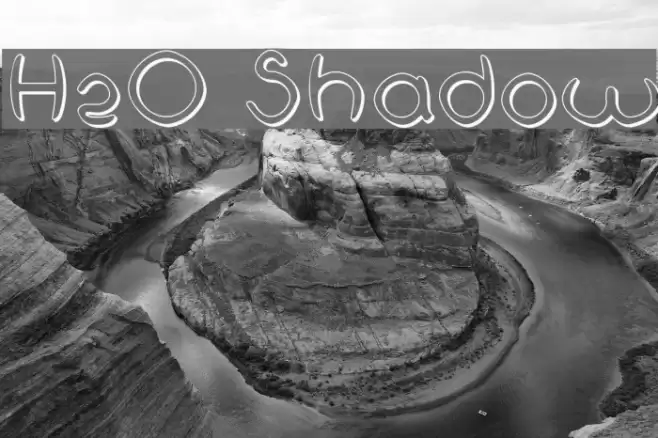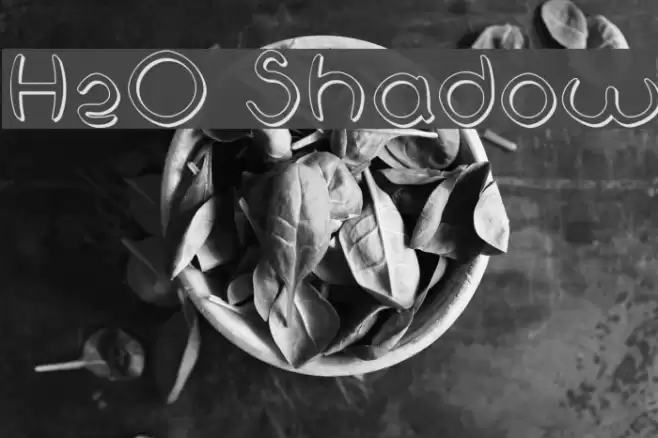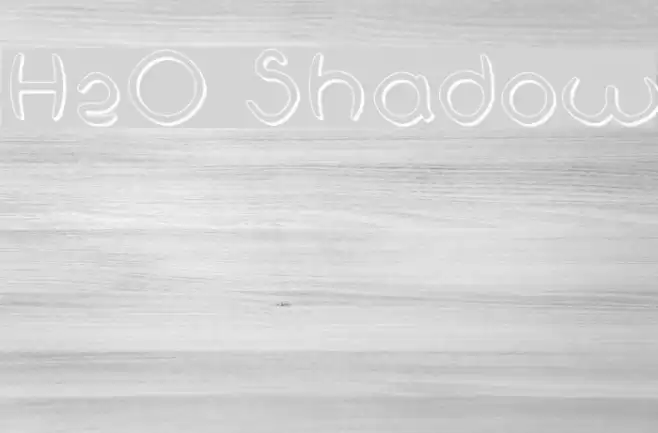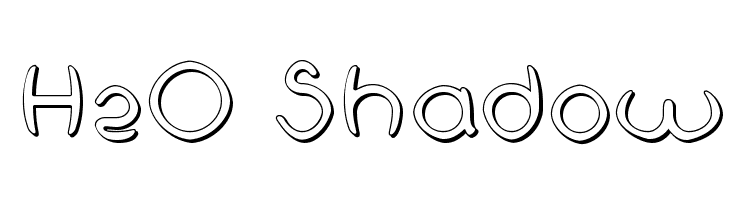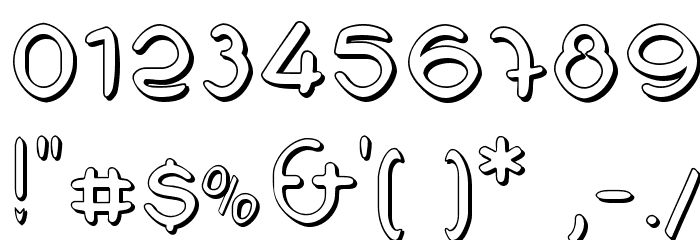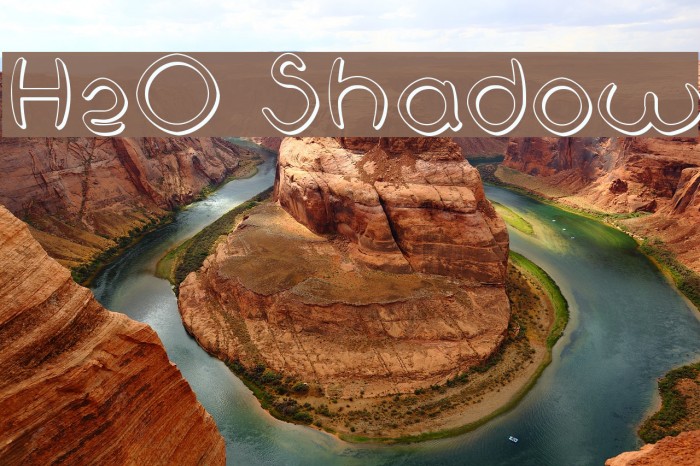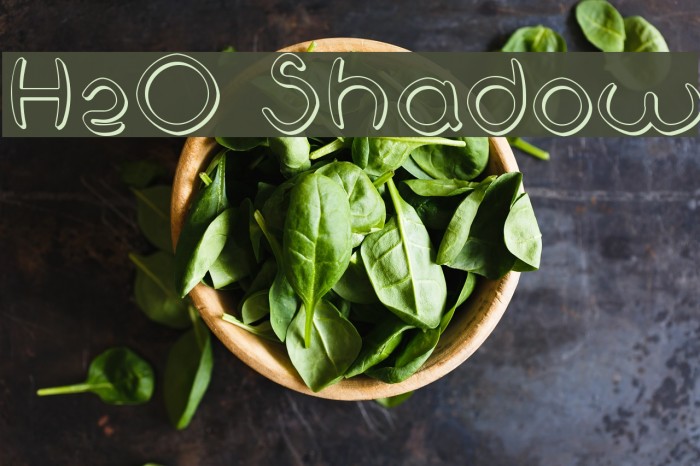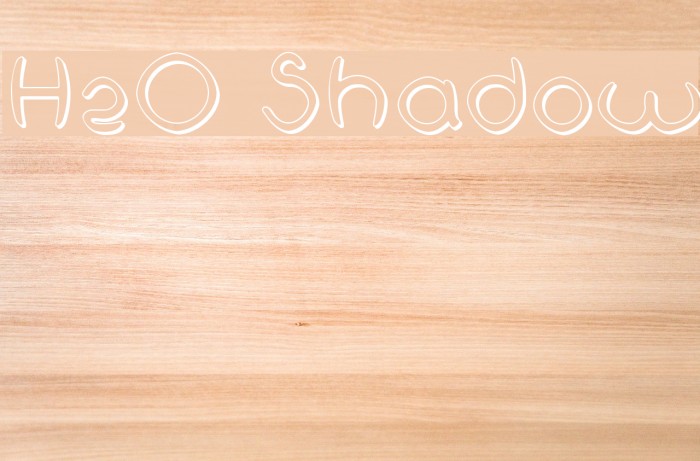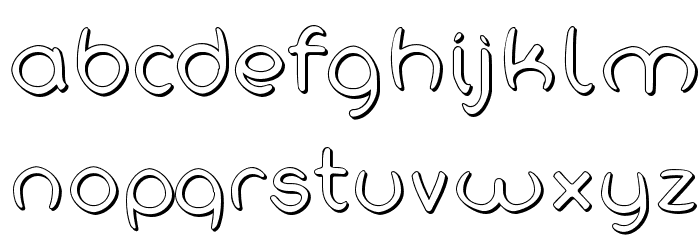
H2O Shadow Font
H2O Shadow Description
This font features a playful and dynamic style with a shadow effect that gives each character a three-dimensional appearance. The letters are rounded and bold, creating a friendly and approachable look. The shadow adds depth and interest, making it stand out in any design. The uppercase and lowercase letters maintain a consistent style, with smooth curves and a uniform thickness. Numbers and special characters are designed to match the overall aesthetic, ensuring a cohesive appearance across all text elements.
A playful, shadowed font with rounded, bold characters from Uncategorized fonts.
- Proposed Projects: Ideal for children's books, playful branding, posters, and creative projects that require a fun and engaging typeface.
- Overall Style: Playful, Modern
- Use Case: Headlines, Posters, Branding